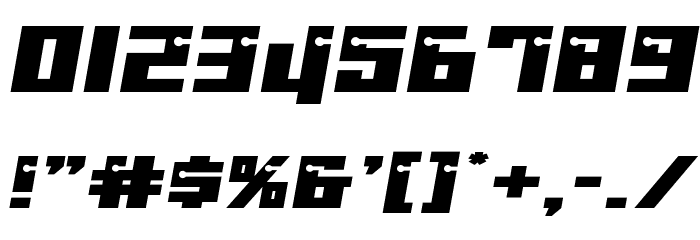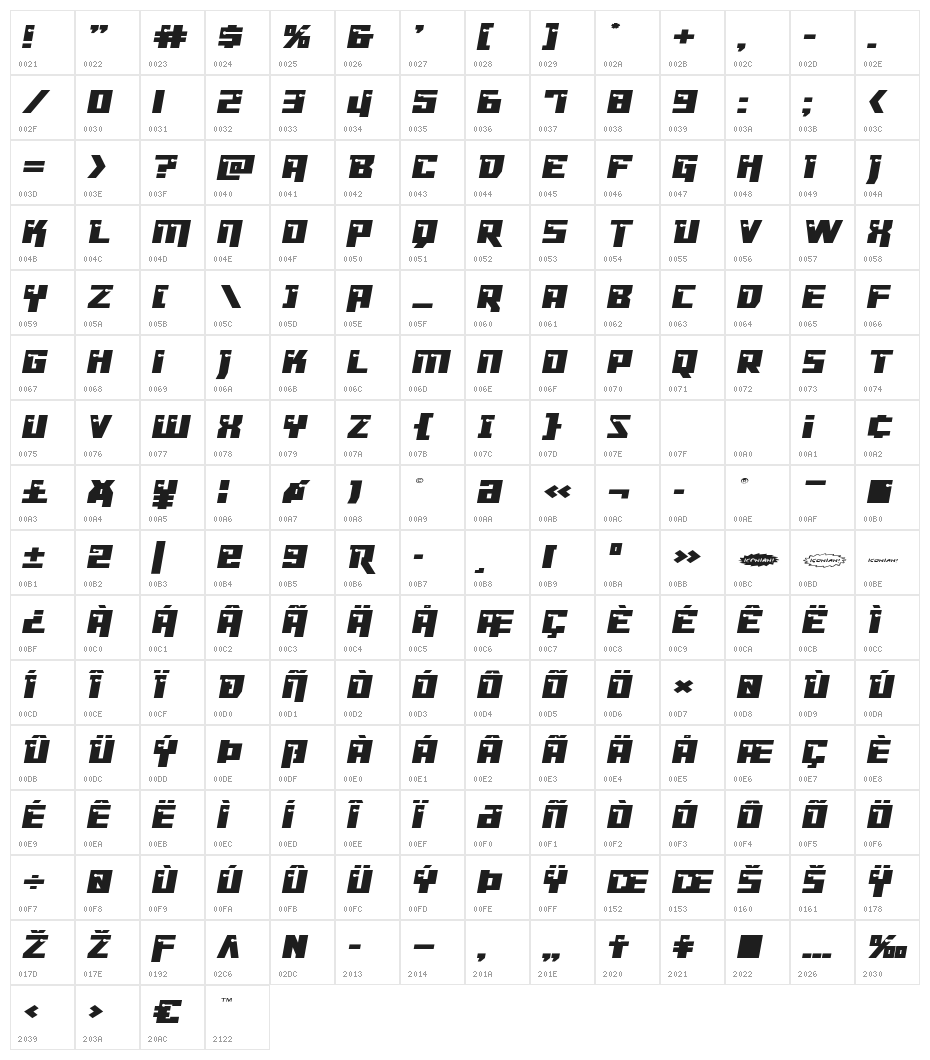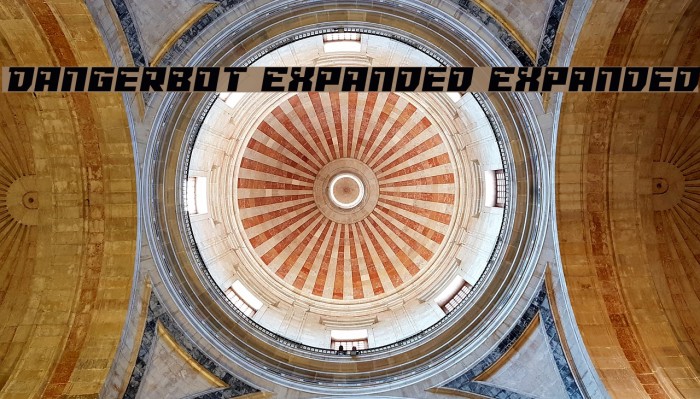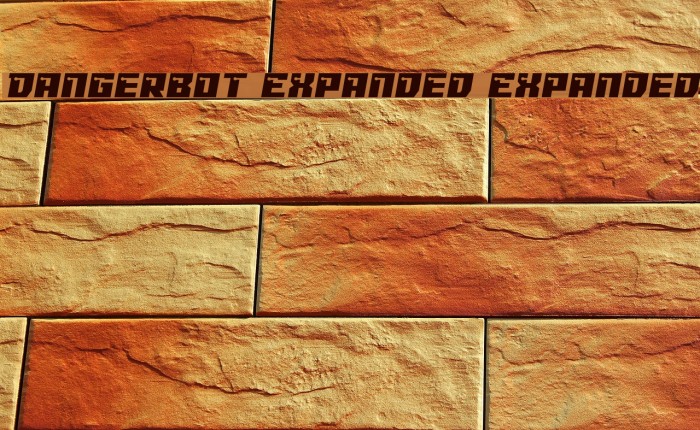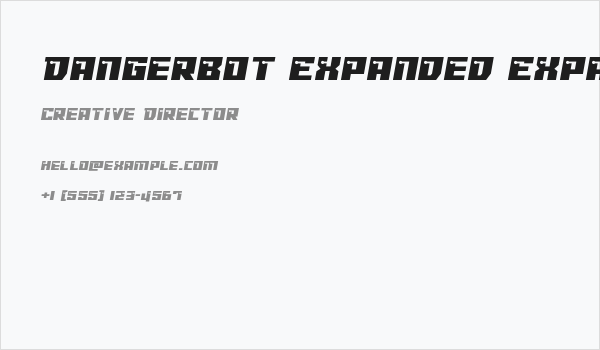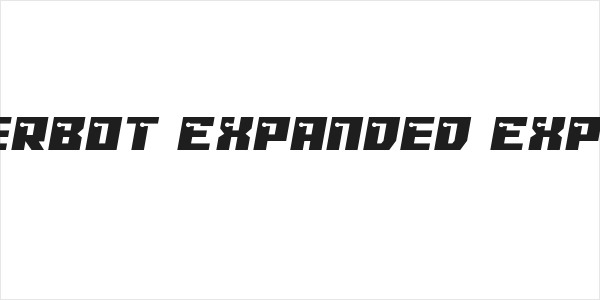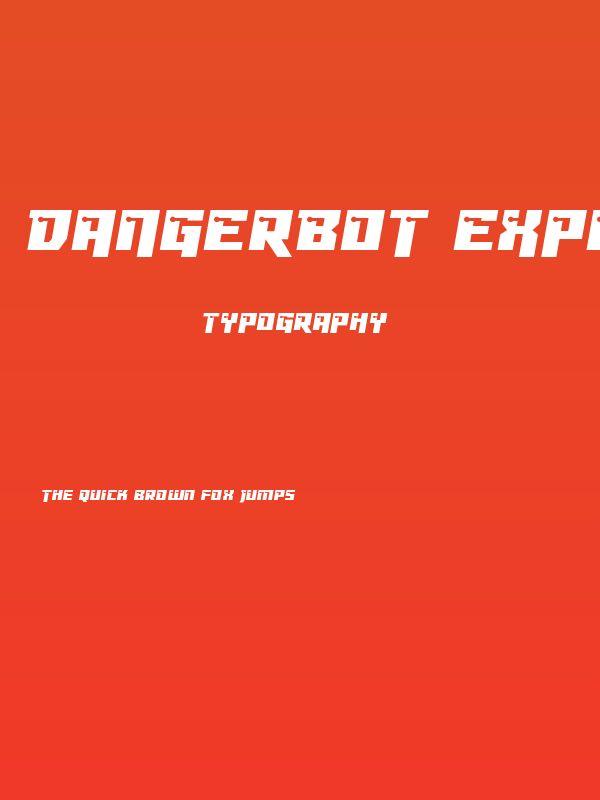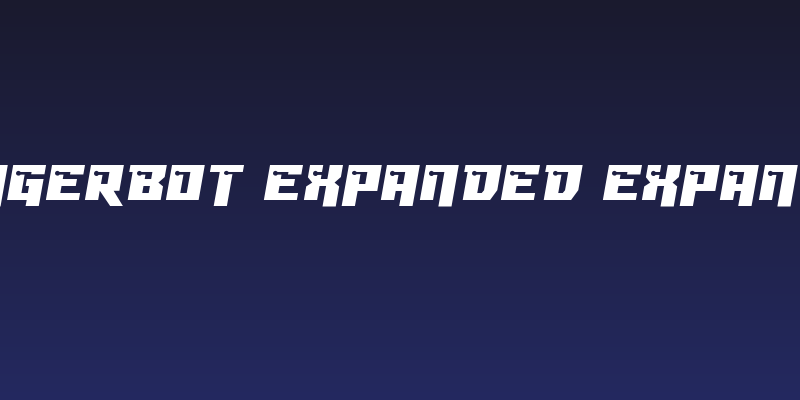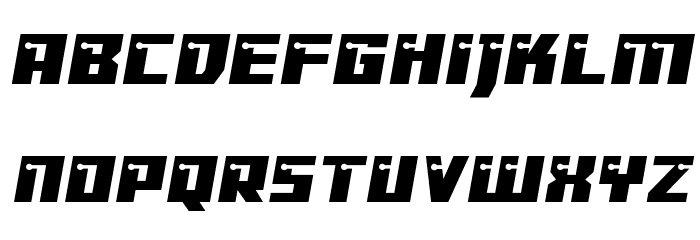
Dangerbot Expanded Font
Dangerbot Expanded Description
This font features a bold, futuristic design with sharp angles and a strong geometric structure. Each character is crafted with a distinct, mechanical aesthetic, giving it a robotic and industrial feel. The uppercase and lowercase letters maintain a consistent style, with angular cuts and a slightly expanded width that enhances its bold presence. Numbers and special characters follow the same design principles, ensuring uniformity across all glyphs. The font's unique style makes it stand out, ideal for projects that require a modern and edgy look.
| Proposed Projects | Ideal for sci-fi themed designs, video game titles, tech branding, and futuristic posters. |